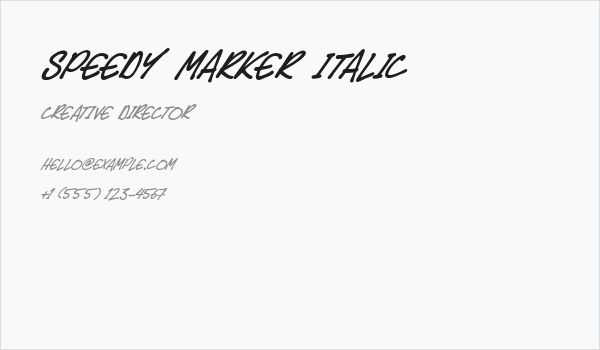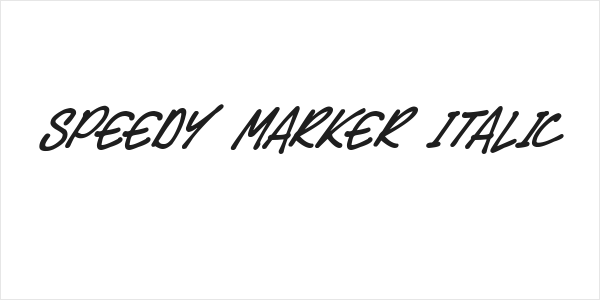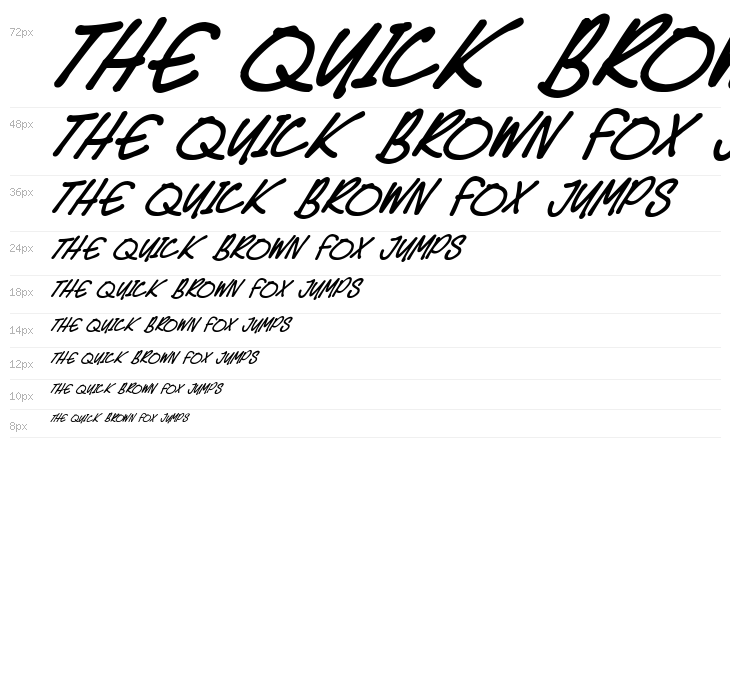
Speedy Marker Italic Font
Speedy Marker Italic Description
This font exudes a dynamic and energetic feel, characterized by its italicized, handwritten style. The letters are bold and slightly slanted, giving the impression of speed and motion. The strokes are thick and consistent, providing a strong visual impact. Each character flows smoothly into the next, creating a sense of continuity and fluidity. The uppercase and lowercase letters maintain a cohesive style, with rounded edges and a slightly informal appearance. The numbers and special characters are equally bold, ensuring readability and consistency across all text elements. This font is ideal for projects that require a personal touch or a sense of urgency.